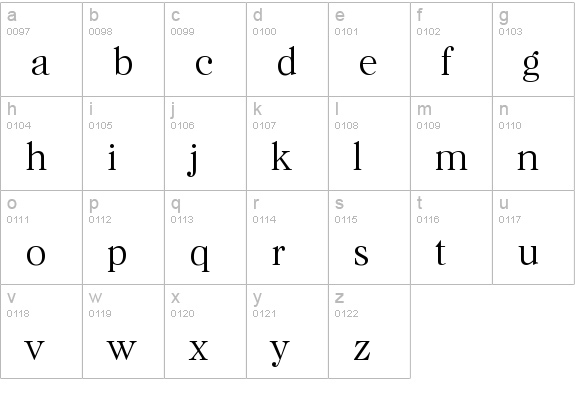
HorshamSerial-Xlight-Regular is the standard, neutral variant in the HorshamSerial typeface family \xE2\x80\x94 well suited to general body text, paragraphs, and standard typographic work.
HorshamSerial-Xlight-Regular font is a sleek and modern typeface that exudes elegance and sophistication. With its clean lines and gentle curves, this font is perfect for creating a professional and polished look in your designs. The thin weight of the characters adds a delicate touch, making it suitable for a variety of projects including branding, editorial design, and more. And the best part? HorshamSerial-Xlight-Regular font is available for free download at FontsMarket.com! This means you can easily access this beautiful font without any cost, allowing you to enhance your projects with a touch of class and style. Don't miss out on this fantastic opportunity to elevate your designs with HorshamSerial-Xlight-Regular font today!